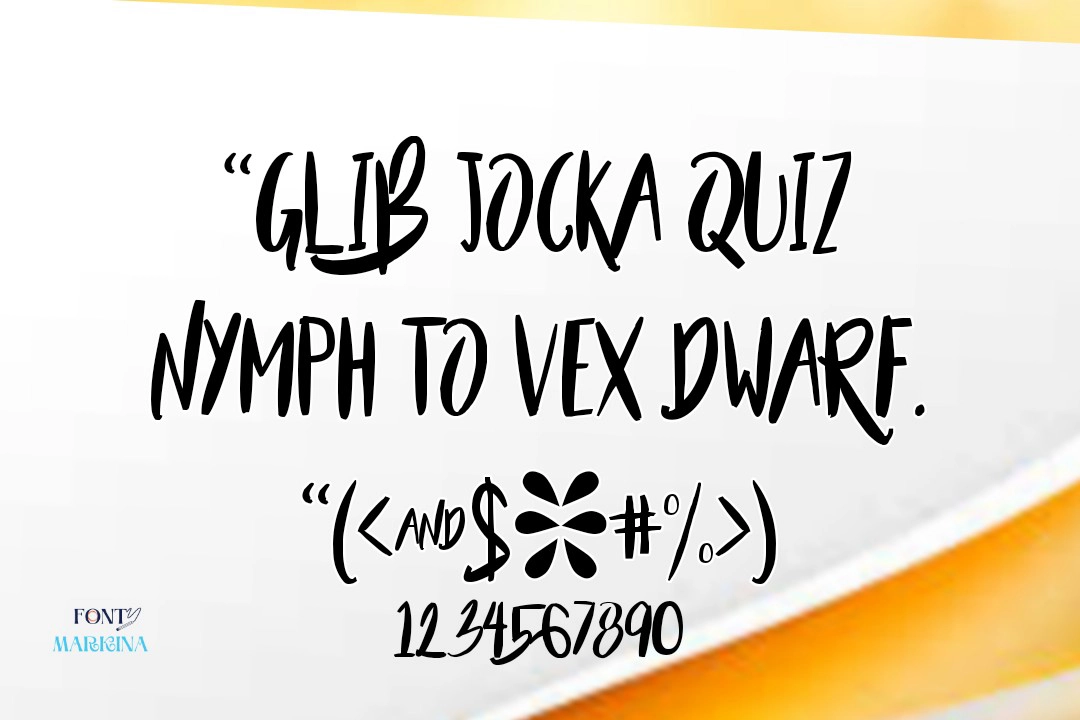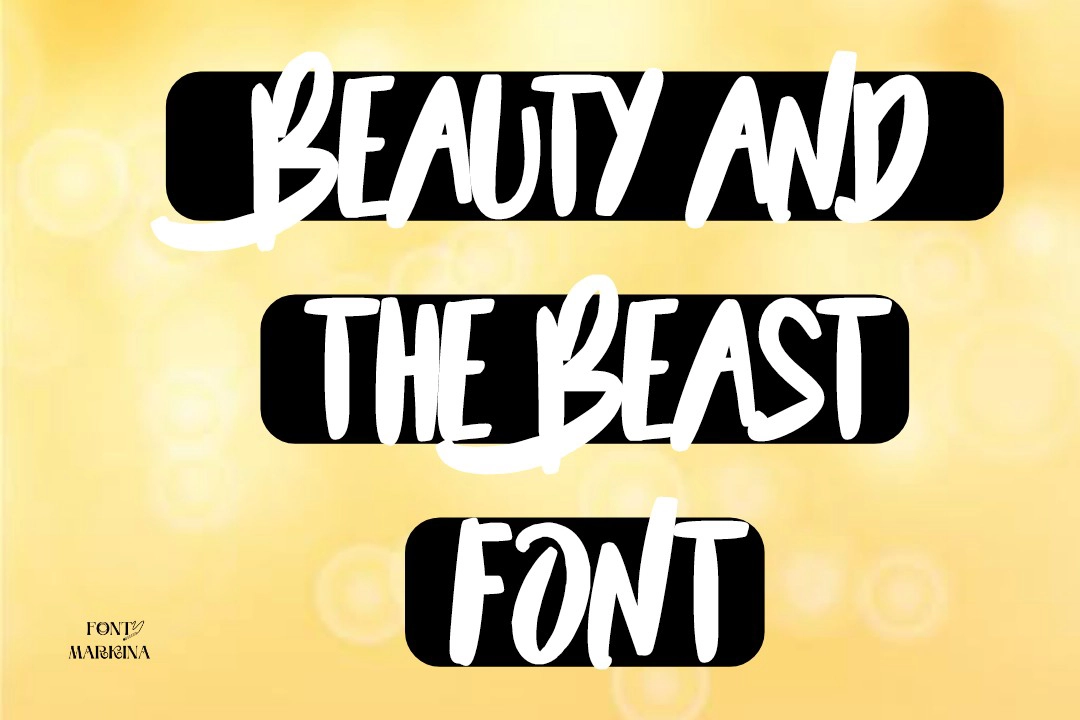
About Beauty and The Beast Font
The Beauty and The Beast Font was developed by a well-known typographic designer named Francis Studio. This typeface looks like a brush style category that is perfect for multiple styles. It has a set of characters and eye-catching glyphs.
It is available in uppercase letters, small letters, symbols, functions, numbers, and some other special characters. You can convert your simple surface letter into a stylish structure with its online generator tool. Its alternative California Jackpot font is classic.
The copy-and-paste function of this font makes your designs look more attractive to the viewers. This font is perfect for your tasks because it has OTF and TTF files available, and also has stylish characters.
Uses of Beauty and The Beast Font
The Beauty and the Beast Font is suitable for different kinds of projects, as you want to use its stylish characters. Anyway, we’ve located the two most similar fonts with this typeface that are available in the below section. It is best for adobe photoshop and canvas.
You can also utilize it with babette font. It has an awesome type of character and makes your project look more attractive. The designer uses it for printing, clothes designs on t-shirts, mug designs, logos, posters, and many more.
In addition, You can utilize it in video games, graphical designs, web designing, promotions, development packaging, labels, and numerous other fun assignments. it has an excellent name in the animations.
Beauty and The Beast Font View
What type of font is Beauty and The Beast Font?
The Beauty and The Beast texture was developed by Francis Studio. It is available in uppercase letters, small letters, and some other special characters.
What are Beauty and The Beast typeface looks like?
This typeface looks like a brush-style category and has awesome types of characters. It has a set of characters and eye-catching glyphs.